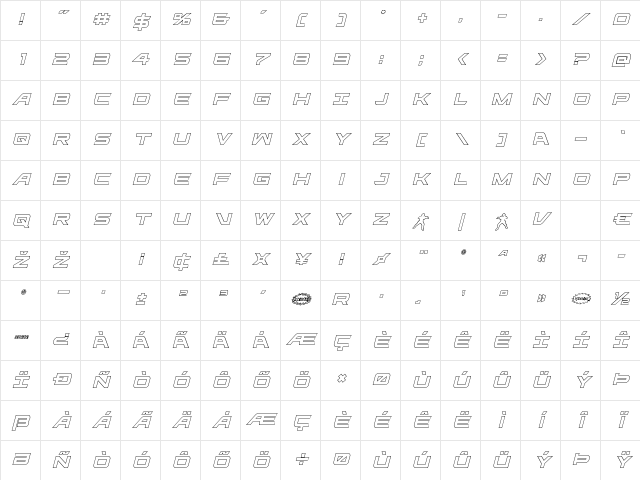
Complete Ghost Clan Outline Italic Italic glyph index. Displaying only characters natively supported by Ghost Clan Outline Italic Italic font.
Ghost Clan Outline Italic is built around its visual character rather than neutral utility - its distinctive forms are designed to make an impression at display sizes. The slanted form adds forward momentum and visual energy.
Font Pairing: Pair with a clean neutral sans-serif for body copy to let Ghost Clan Outline Italic's character lead without overwhelming the composition.
Pro Tip: Use Ghost Clan Outline Italic exclusively at display sizes - it was designed to be seen, not read at length. Let a neutral companion handle body copy.